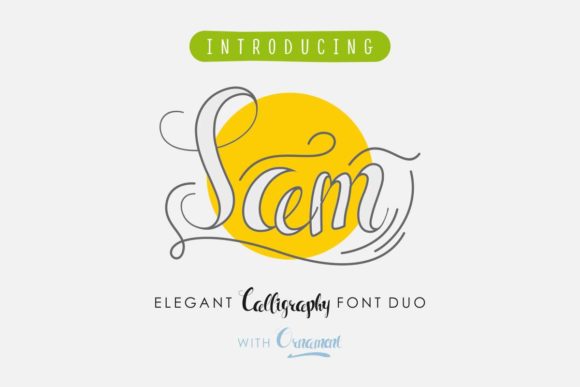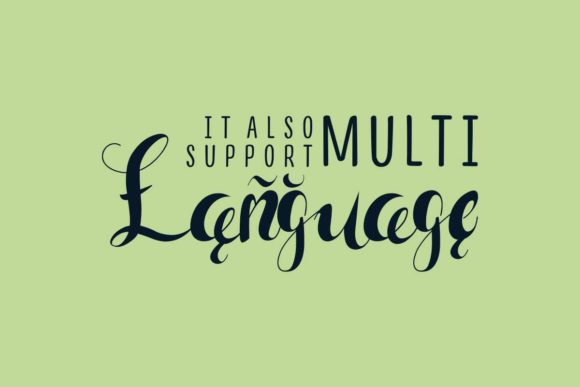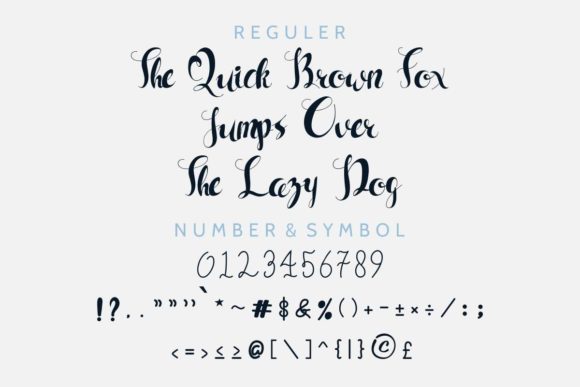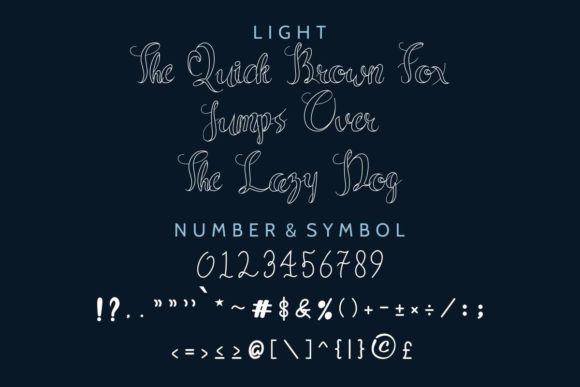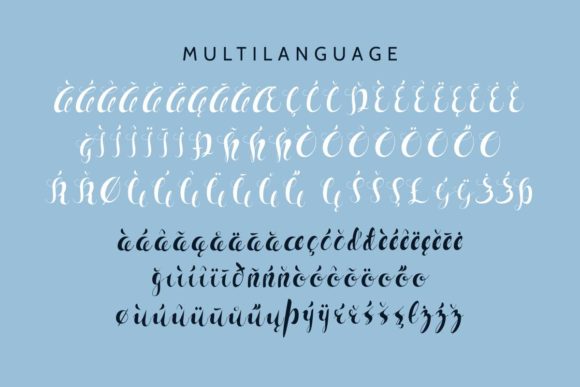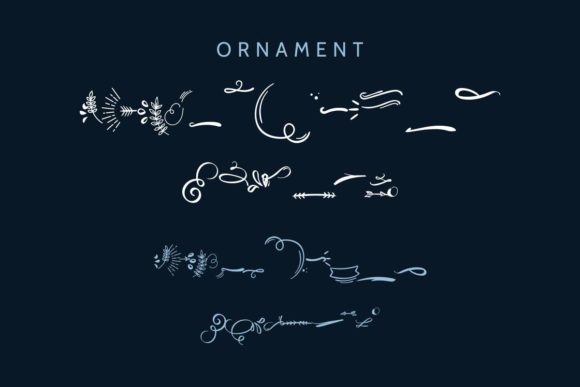
Introduction to Sam Font
Sam is not just another hand lettering brush font.
This is an equally familiar and unusual calligraphy font, made by hand It’s great for music label covers, branding, food packaging or stationery.
Key Features of Sam Font
Why Choose Sam Font?